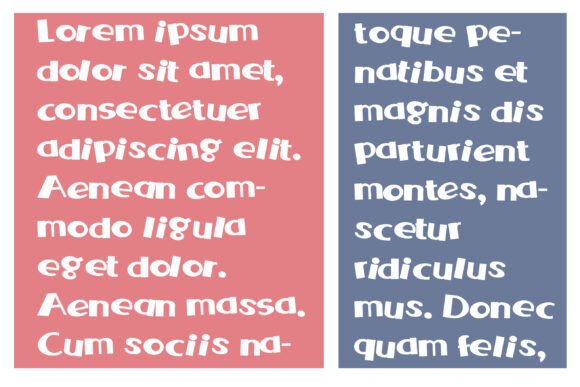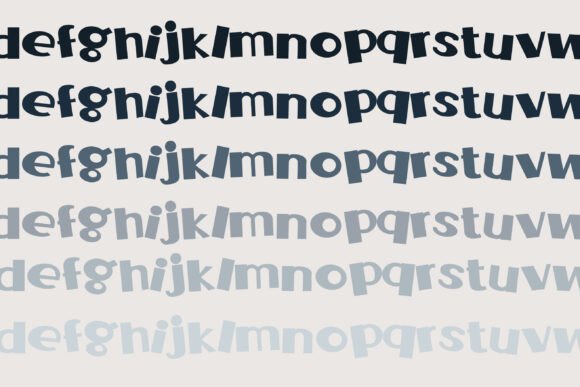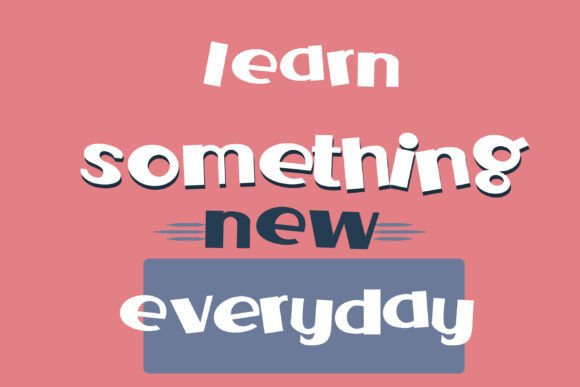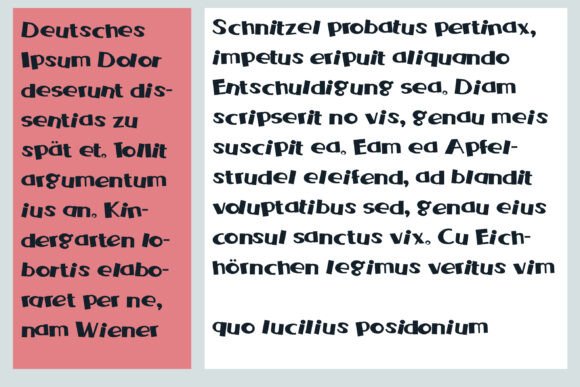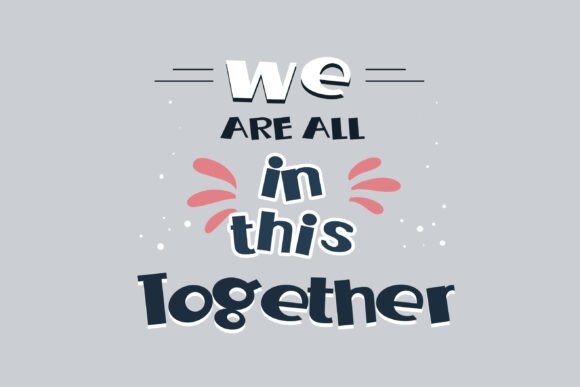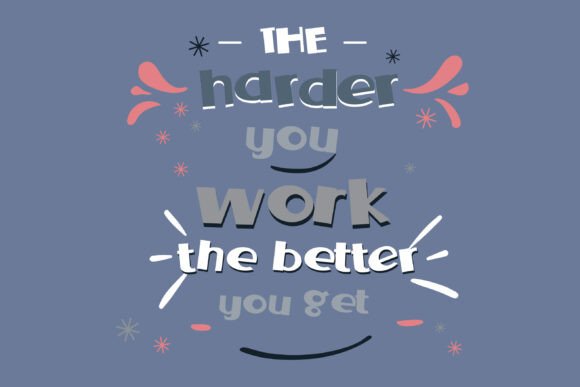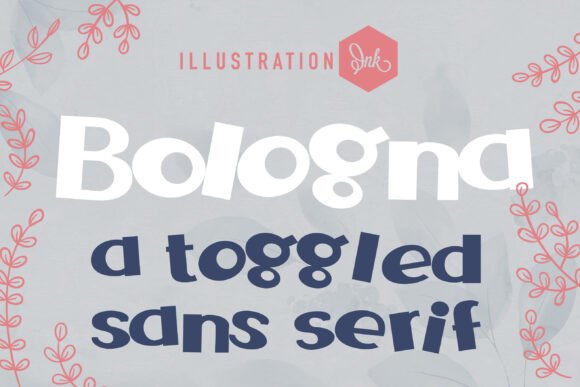
Bologna Font: A Whimsical Sans Serif for Creative Projects
Are you looking for a font that adds a personal touch to your designs? Look no further than the Bologna Font, a hand-crafted sans serif font that exudes whimsy and playfulness. With its chunky, thick, and whimsical lettering, this font is perfect for designers and crafters who want to add a unique flair to their projects.
A hand-crafted font, also known as a handwritten font, is a typeface that is designed to mimic the look of handwriting. It is often used for invitations, greeting cards, and other items where a personal touch is desired. Handwritten fonts can be either formal or informal, and they can be used for a variety of purposes, from digital designs to print materials.
Characteristics of the Bologna Font
The Bologna Font is a sans serif font, which means it doesn’t have the small lines or flourishes at the ends of the letters. This gives it a clean and modern look that is perfect for designs where you want the text to stand out. The font has a chunky, thick quality to it, which makes it easy to read and adds to its whimsical charm.
Uses for the Bologna Font
The Bologna Font is a versatile font that can be used for a wide range of projects. Here are a few ideas to get you started:
- Invitations and greeting cards: The Bologna Font is perfect for creating personalized invitations and greeting cards for special occasions like weddings, birthdays, and holidays.
- Digital designs: Use the Bologna Font to add a personal touch to your digital designs, such as social media graphics, blog posts, and email newsletters.
- Print materials: The Bologna Font is great for print materials like brochures, flyers, and posters.
- Crafting projects: If you’re a crafter, you can use the Bologna Font to add a personal touch to your projects, such as scrapbooking, journaling, and card making.
Benefits of Using the Bologna Font
There are many benefits to using the Bologna Font in your designs. Here are a few:
- Unique and eye-catching: The Bologna Font is a unique and eye-catching font that will add a personal touch to your designs.
- Easy to read: The font is easy to read, even in large or small sizes.
- Versatile: The Bologna Font can be used for a wide range of projects, from digital designs to print materials.
- Whimsical and playful: The font has a whimsical and playful quality to it, which makes it perfect for designs where you want to add a bit of personality.
Tips for Using the Bologna Font
Here are a few tips for using the Bologna Font in your designs:
- Use it sparingly: While the Bologna Font is a beautiful font, it can be overwhelming if used too much. Use it sparingly to add a personal touch to your designs.
- Pair it with other fonts: The Bologna Font pairs well with other fonts, such as serif fonts or script fonts. Experiment with different pairings to find the one that works best for your design.
- Experiment with colors: The Bologna Font looks great in a variety of colors, from bright and bold to soft and pastel.
The Bologna Font is a unique and versatile font that is perfect for designers and crafters who want to add a personal touch to their projects. With its chunky, thick, and whimsical lettering, this font is sure to add a bit of personality to your designs. Whether you’re creating invitations, digital designs, or print materials, the Bologna Font is a great choice.